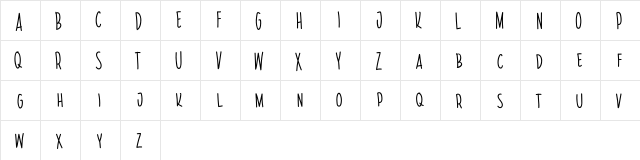
GOLDSTEP FREE Regular Font Preview
GOLDSTEP FREE Regular
GOLDSTEP FREE Regular Font Details
Design Context for GOLDSTEP FREE Typeface
GOLDSTEP FREE takes a measured approach to typography — its balanced proportions and neutral character make it a reliable workhorse for both digital and print work.